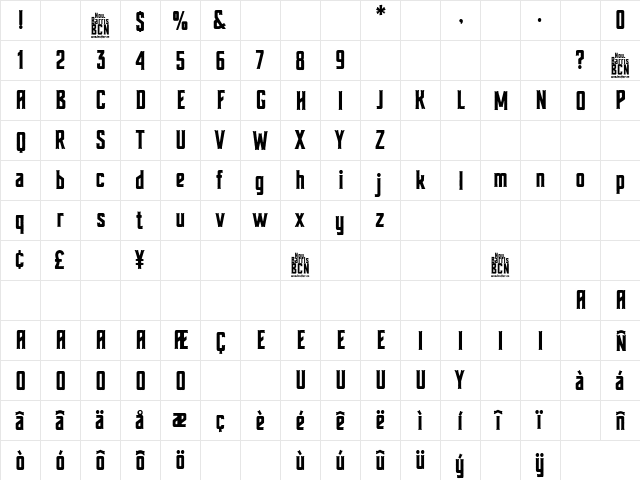
Nou Barris Bcn Regular
Design Context for Nou Barris Bcn Typeface
Nou Barris Bcn takes a measured approach to typography — its balanced proportions and neutral character make it a reliable workhorse for both digital and print work.